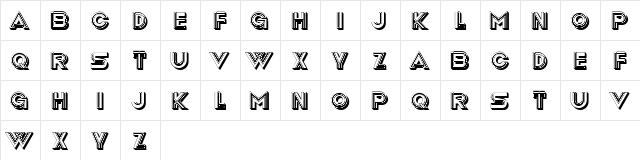
Taiga Regular
Design Context for Taiga
Taiga is a composed and adaptable typeface that performs quietly and consistently across a wide range of design contexts.